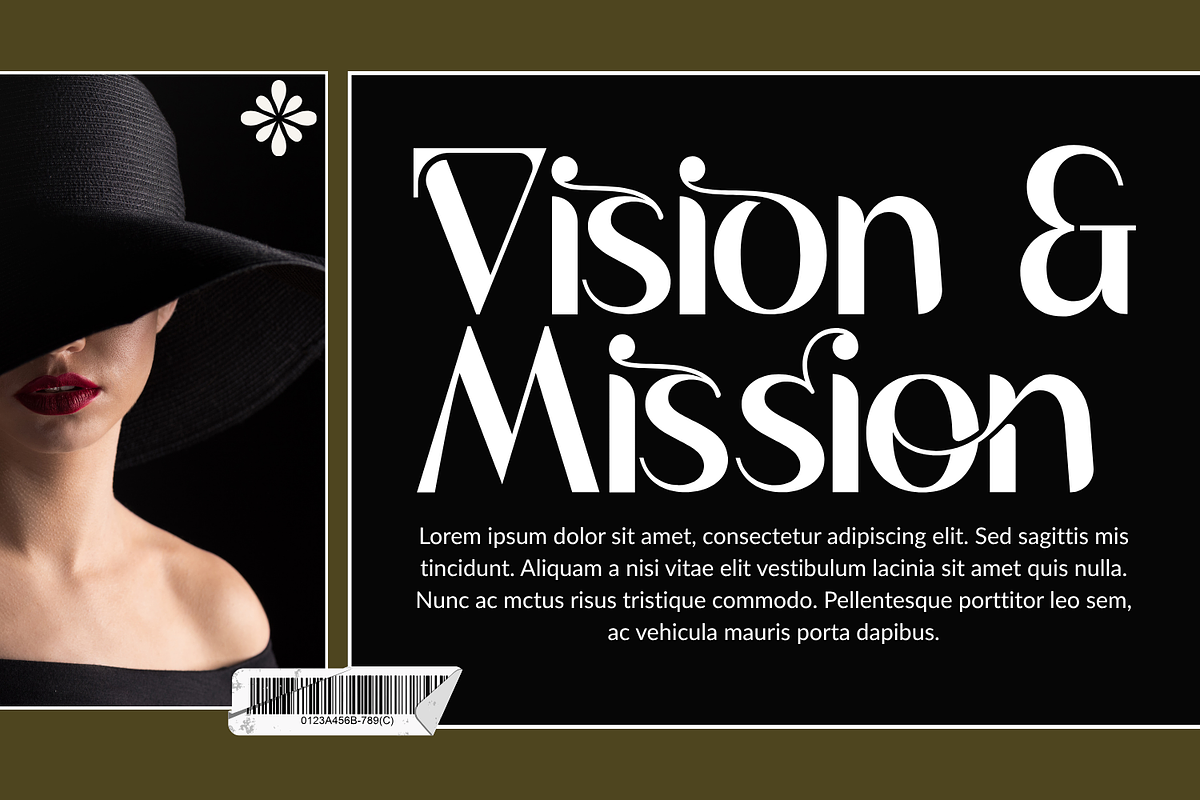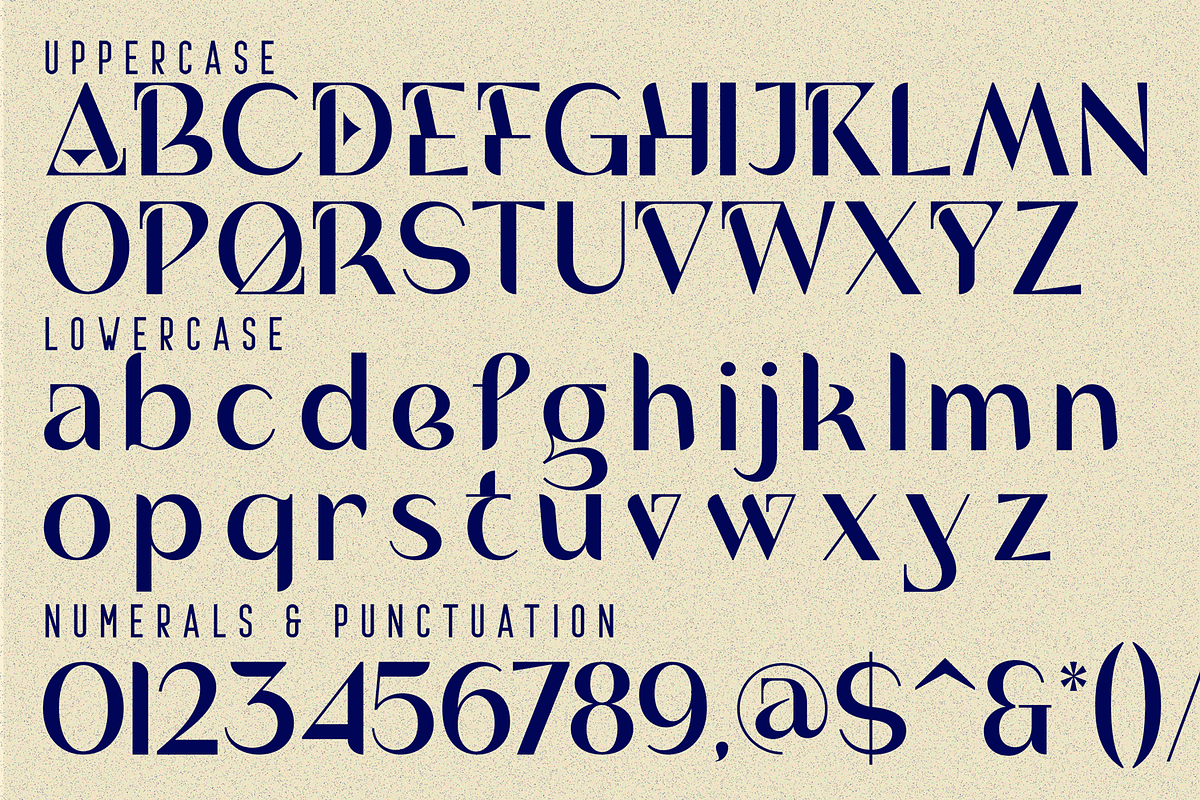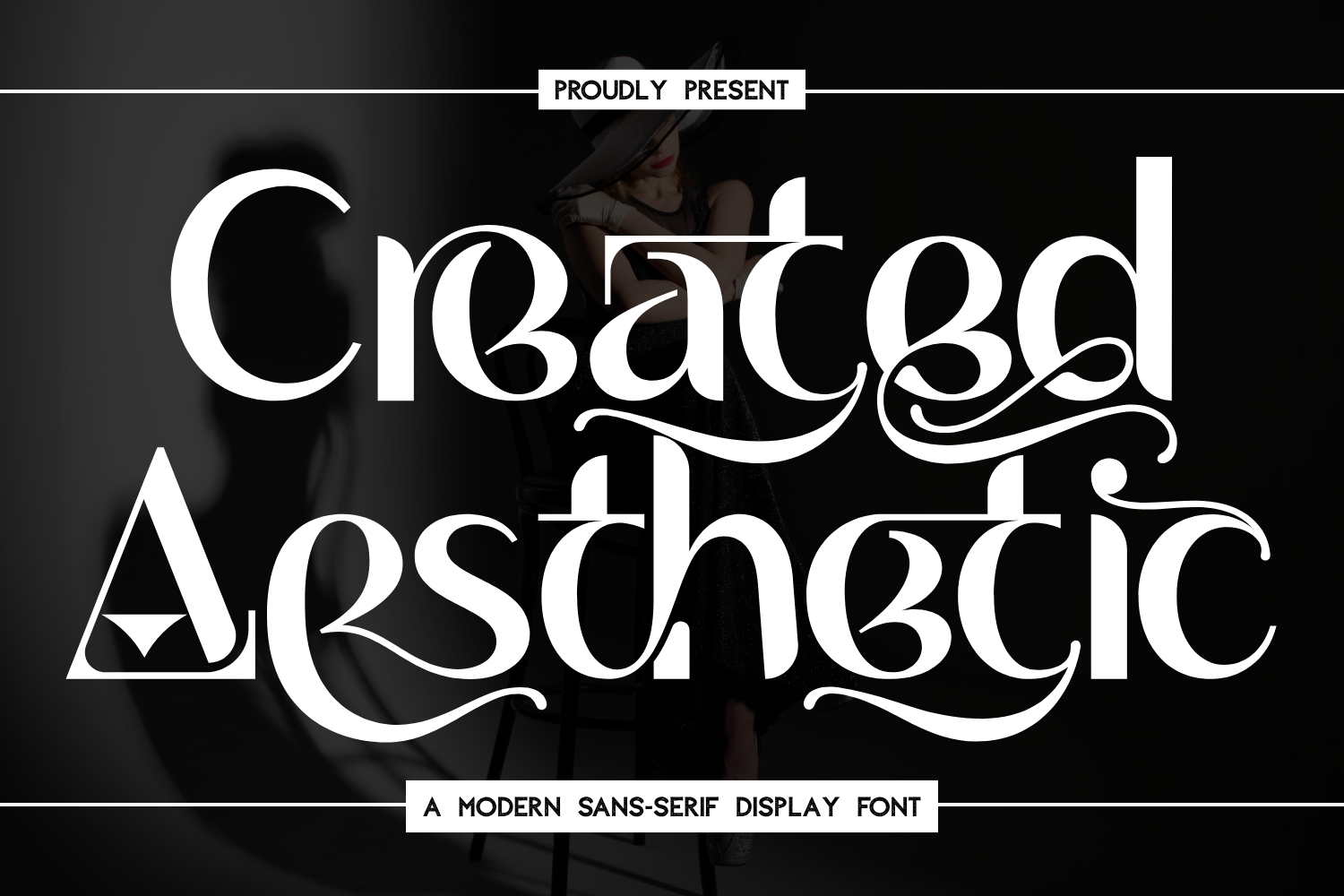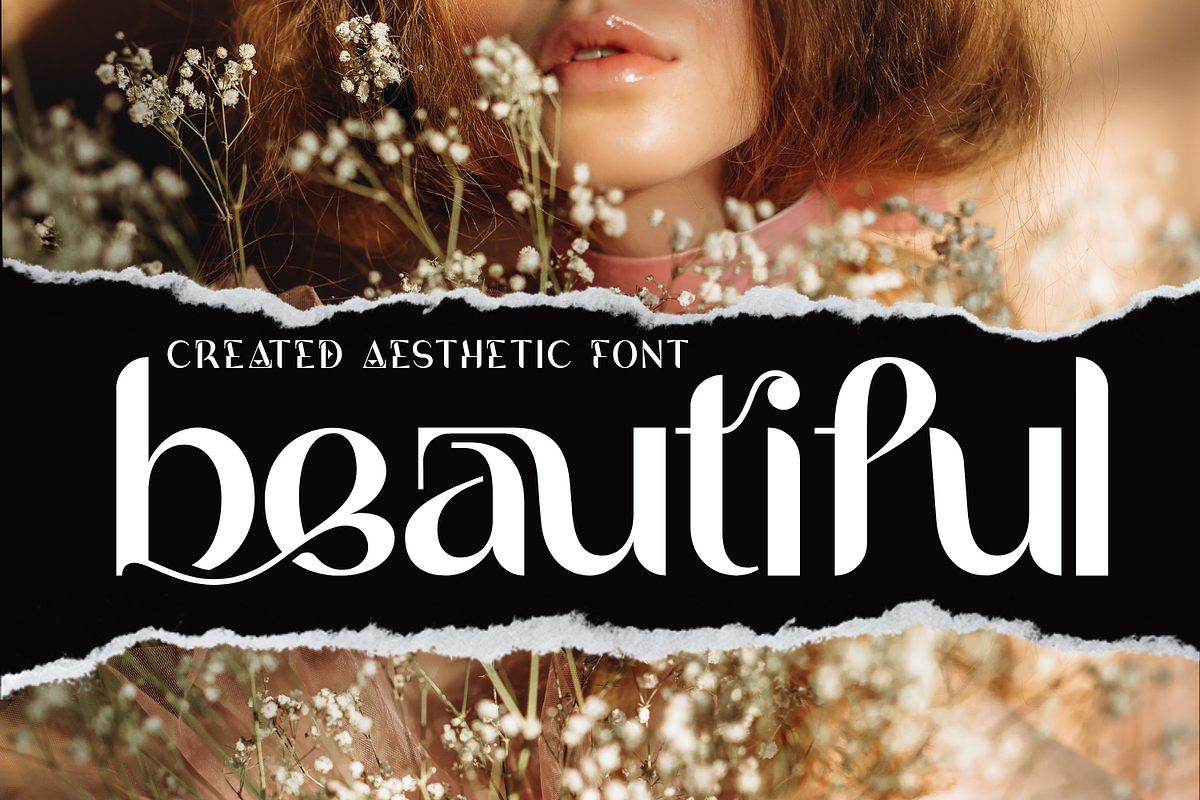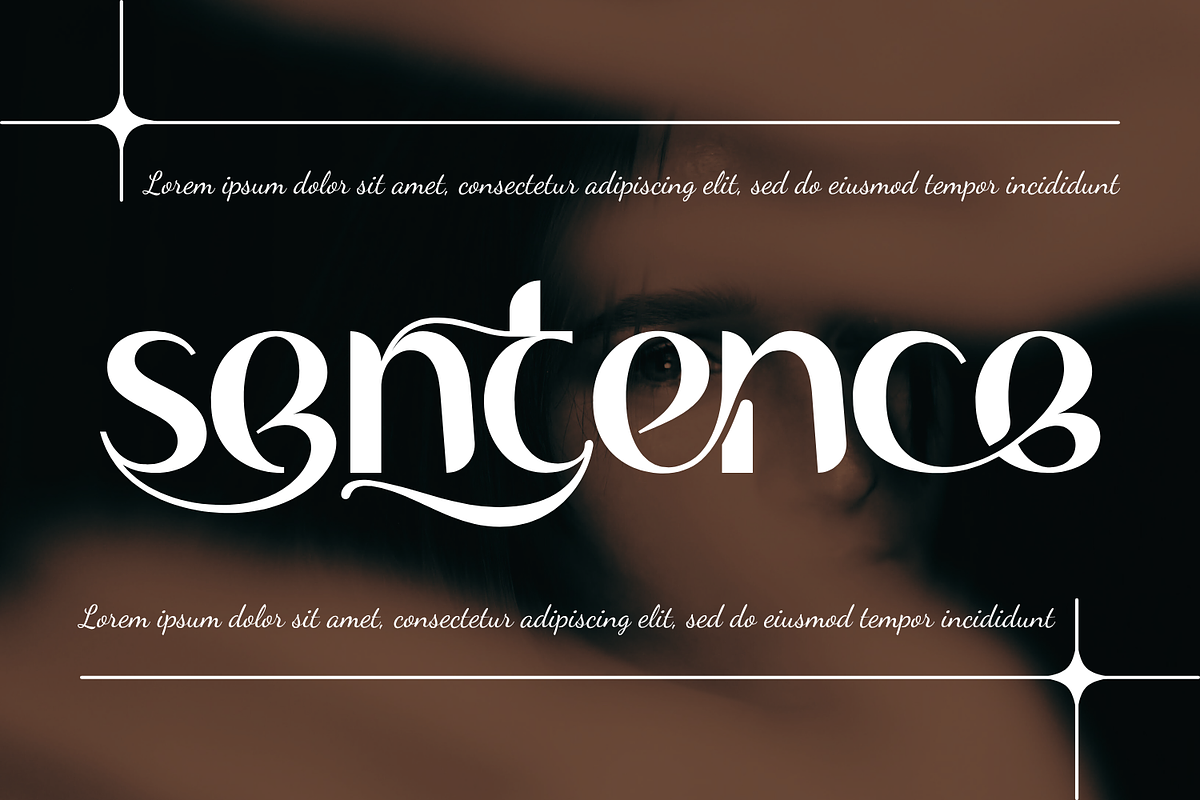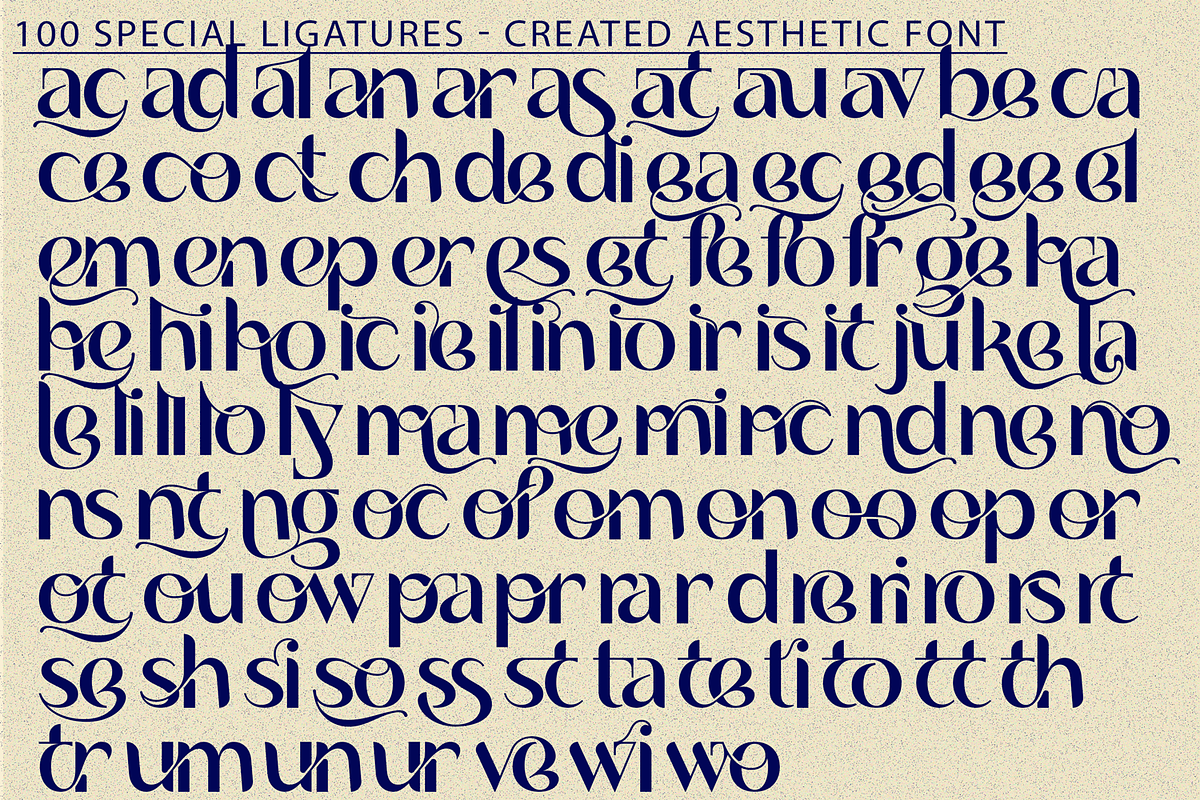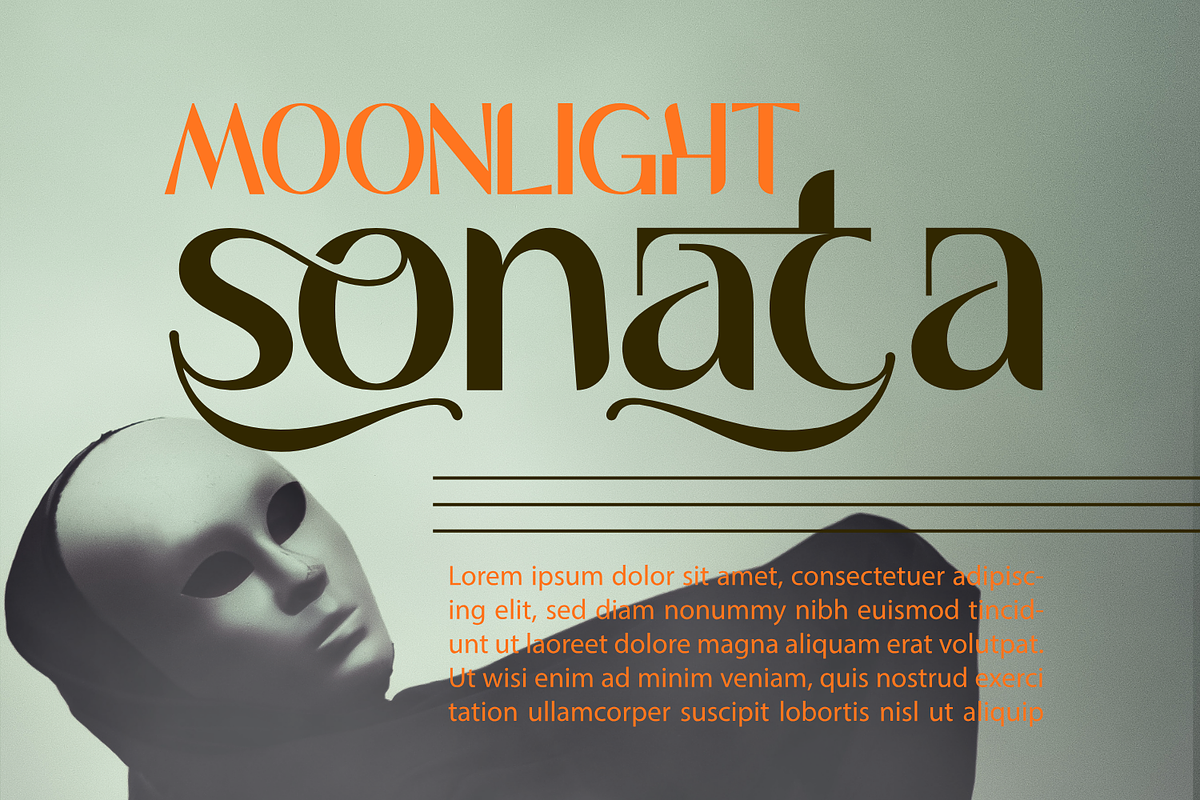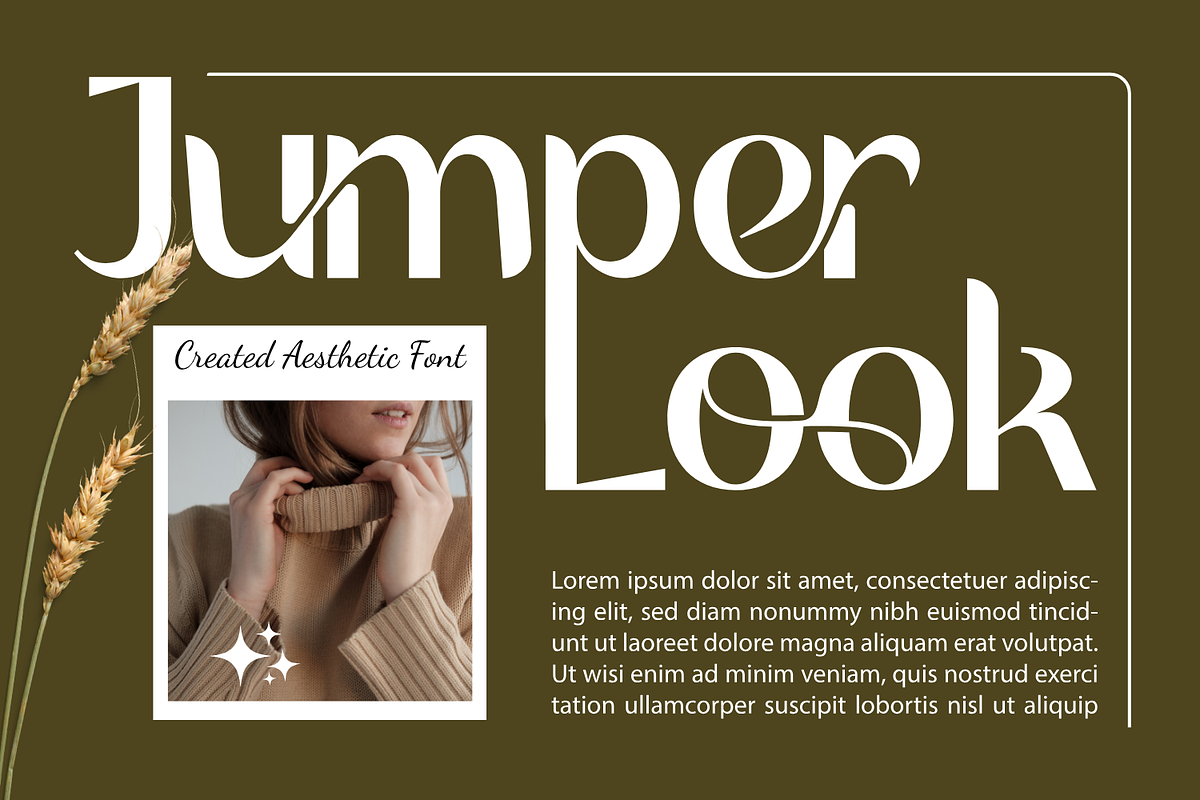
Created Aesthetic - Modern Sans Font
Created Aesthetic - Modern Sans Font, a sophisticated Modern Sans-Serif Display Font crafted to elevate your design with elegance and creativity. Its sleek geometric shapes blend seamlessly with expressive decorative strokes, creating a perfect balance between modern minimalism and artistic flair. Whether you’re working on fashion branding, editorial layouts, packaging, or luxury visual identities, Created Aesthetic will bring a contemporary and distinctive look to your typography.
- Uppercase & Lowercase Letters
- Approximately 100 Special Ligatures for stylish character combinations
- Numerals & Punctuation for design flexibility
- Accented Characters to support multiple languages
About 100 ligatures combined with Stylistic Alternates Font:
ac ad al an ar as at au av be ca ce ch co ct de di ea ec ed ee el em en ep er es et fe fo fr ge ha he hi ho ie ic il in io ir is it ju ke la le li ll lo ly ma me mi nc nd ne ng no nt ns oc of om on oo op or ot ou ow pa pr ra rd re ri ro rs rt se sh si so ss st ta te th ti to tr tt um un ur ve wi wo